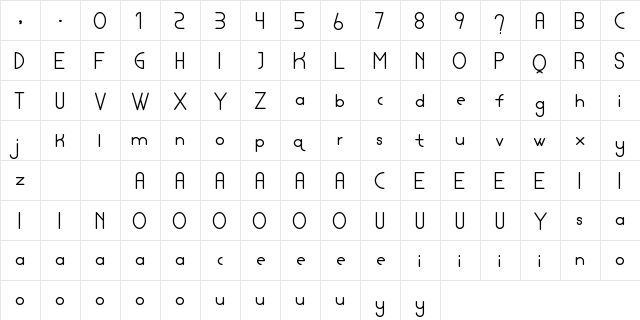
Lamborgini Regular
| Designer | Ikrar Bey Khubaib |
Design Context for Lamborgini Typeface
Lamborgini takes a measured approach to typography — its balanced proportions and neutral character make it a reliable workhorse for both digital and print work.